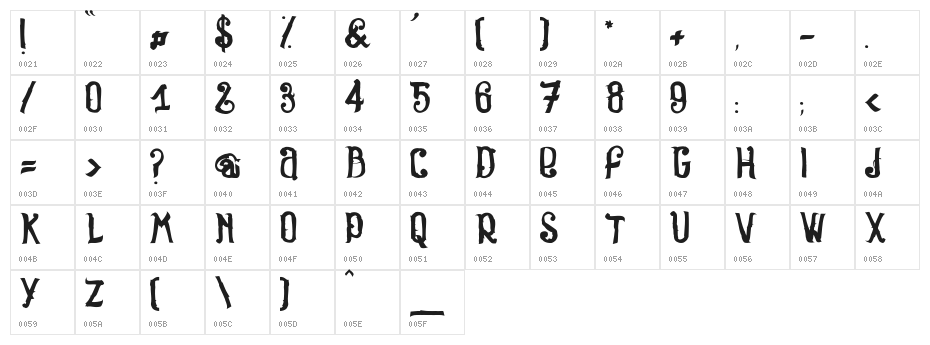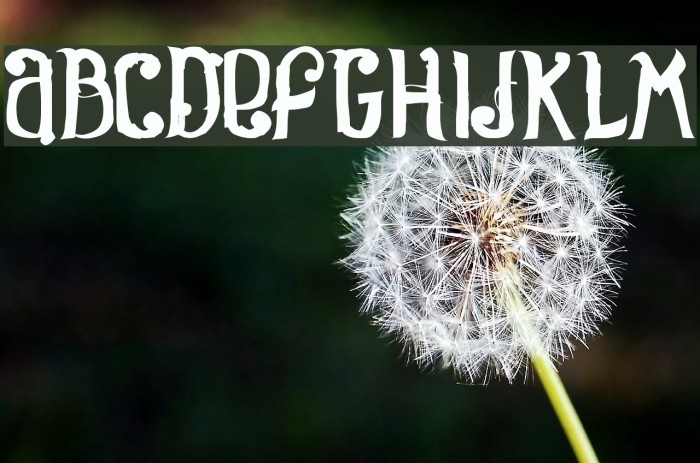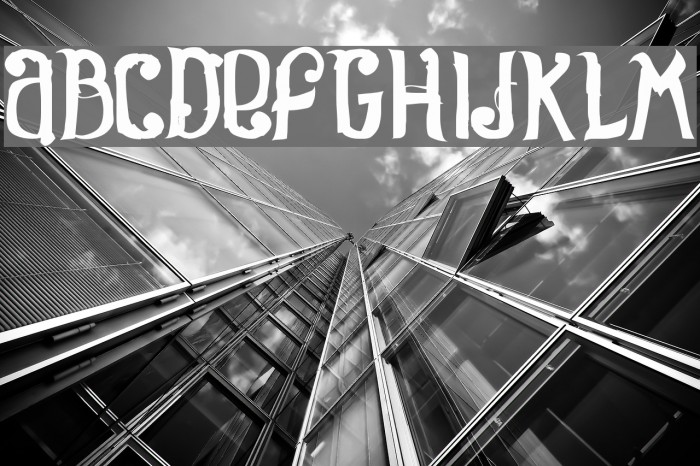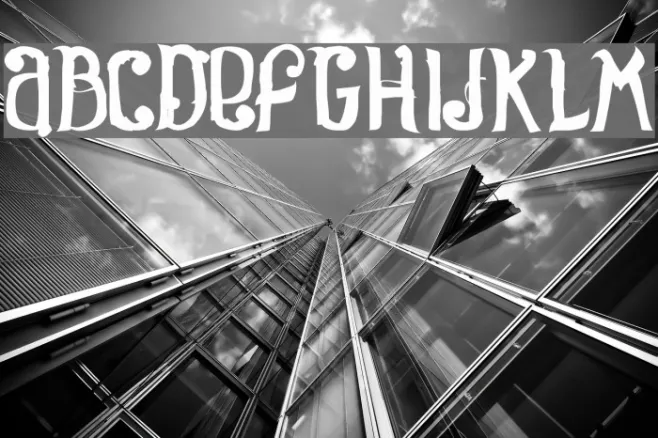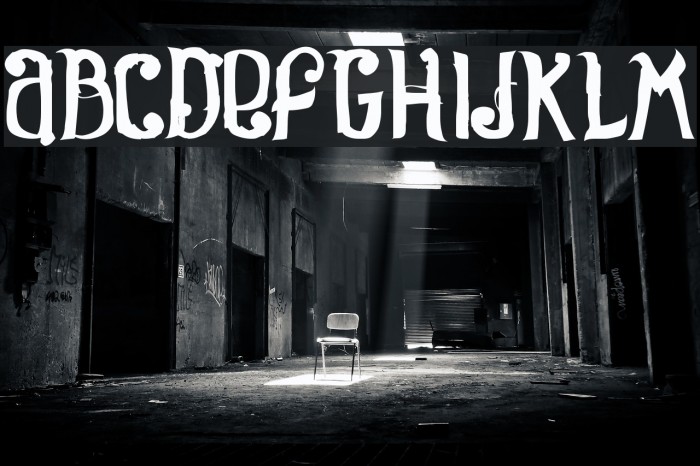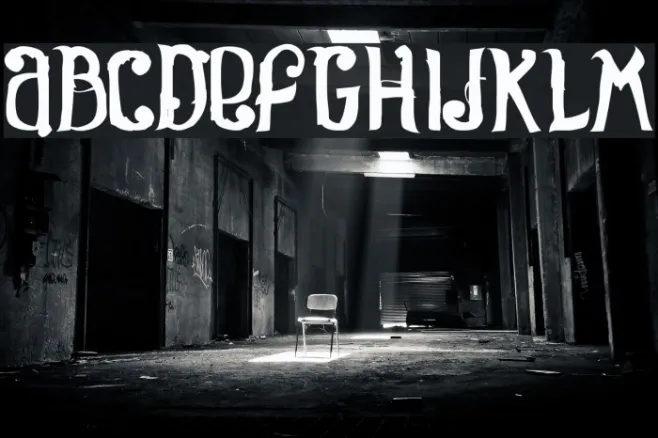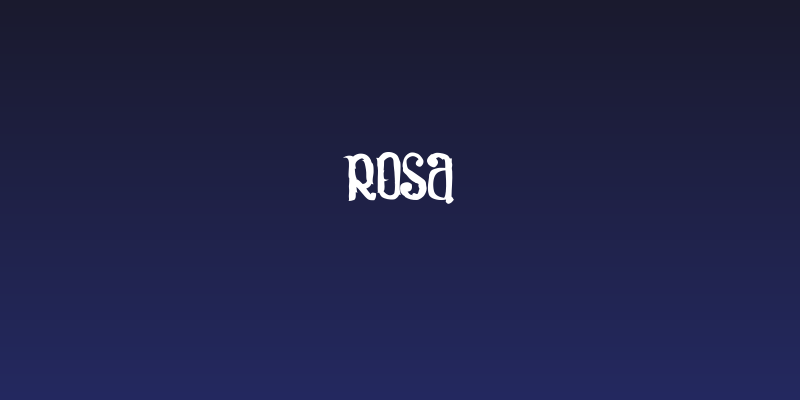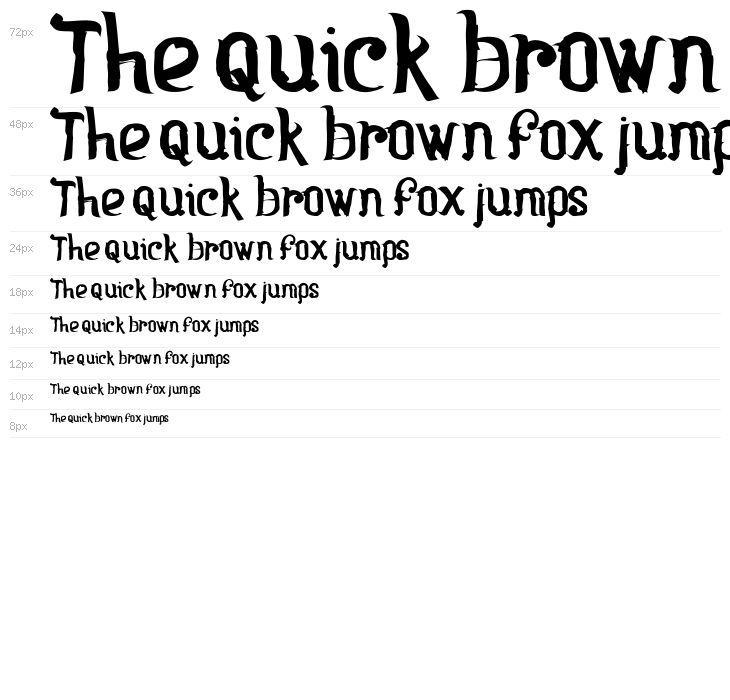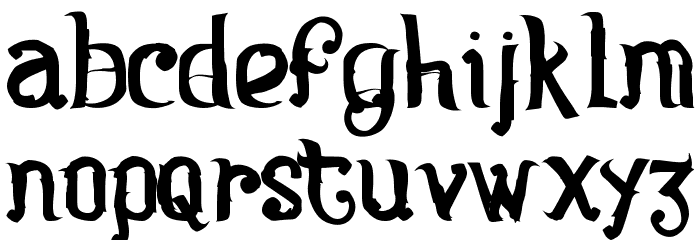
Rosa Font
Rosa Description
This font features a bold and expressive style with a hand-drawn appearance. The characters have a unique, artistic flair, with varying stroke thickness that adds a dynamic and lively feel. The uppercase letters are particularly striking, with exaggerated curves and angles that give them a distinctive look. The lowercase letters maintain a consistent style, complementing the uppercase with their own playful and whimsical design. Numbers and special characters follow the same artistic theme, ensuring a cohesive look across all text elements. The overall design is reminiscent of a vintage or retro aesthetic, making it suitable for projects that require a touch of nostalgia or creativity.